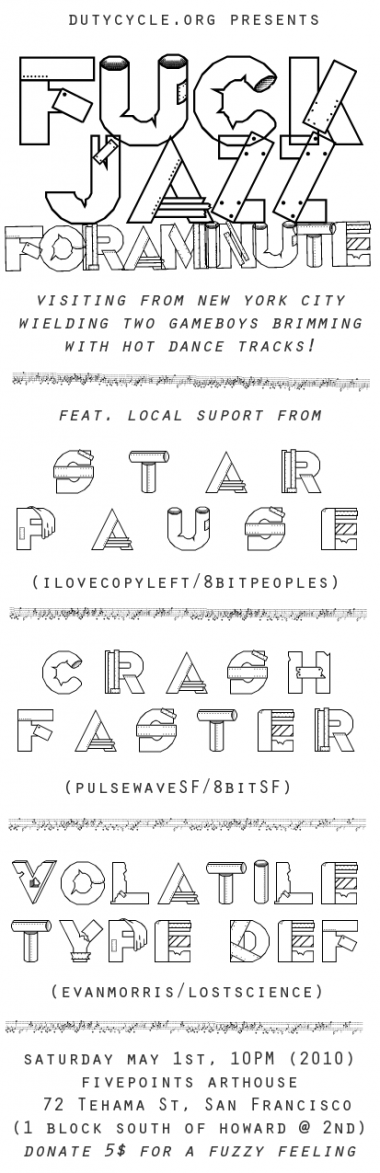
lol. now this is my cup of tea, mate :)
This is way cool...instant Top Pick.
You continue to amaze me, pnut! 10.
Building letters from discarded, used parts. I can only support the idea of recycling. :)) But seriously speaking, this is a wonderful design achivement. I would even put it ahead of Convention, a similar, but more experimental piece. 10/10
Congratulations! FontStruct Staff have deemed your FontStruction worthy of special mention. “Scrapheap” is now a Top Pick.
How come I never saw this font before? A lot of fun here.
cool i like this
really great work... you make gold from craps lol
Excelent font, Great job...It's very cool.
wait... I'm new to this, so where did you get the scraps from?
LOL, they were just lying around gathering dust in the back of my mind.
in real use =)
@starpause: Cheers for posting this ... it's great to see a design in action. Hope the gig went well :)